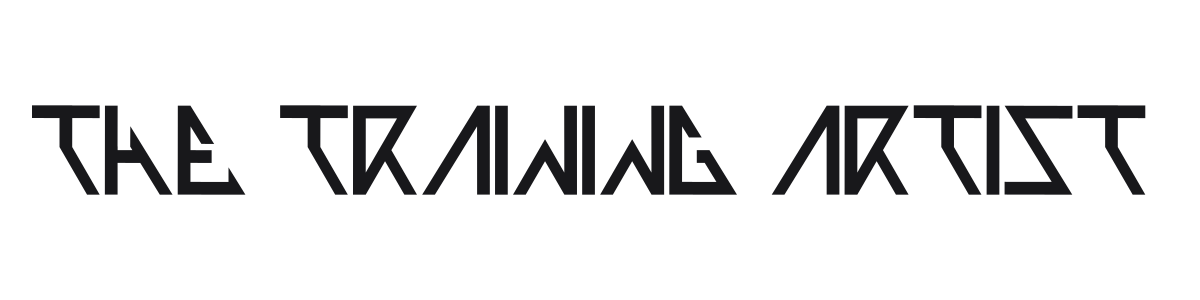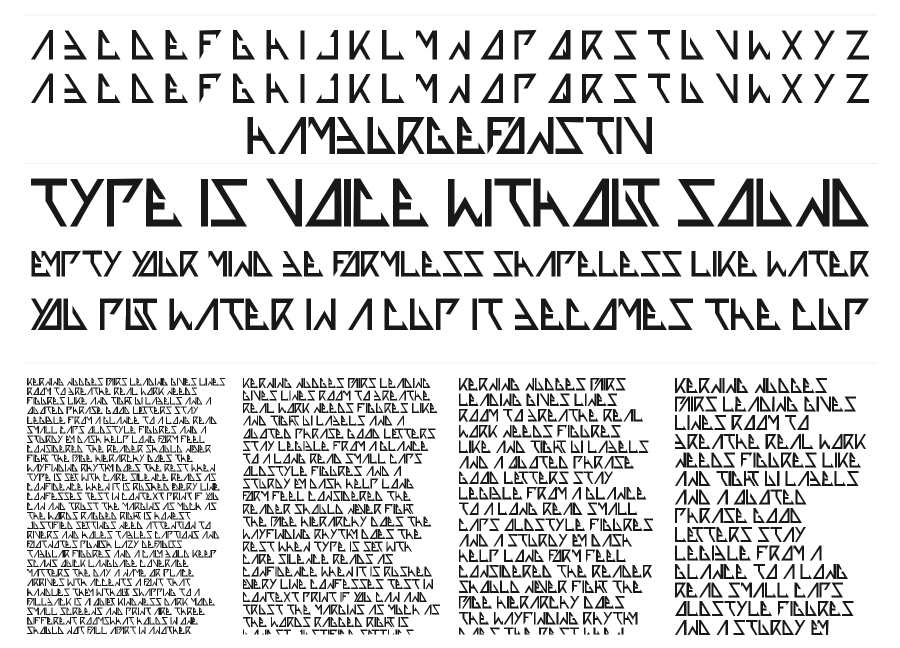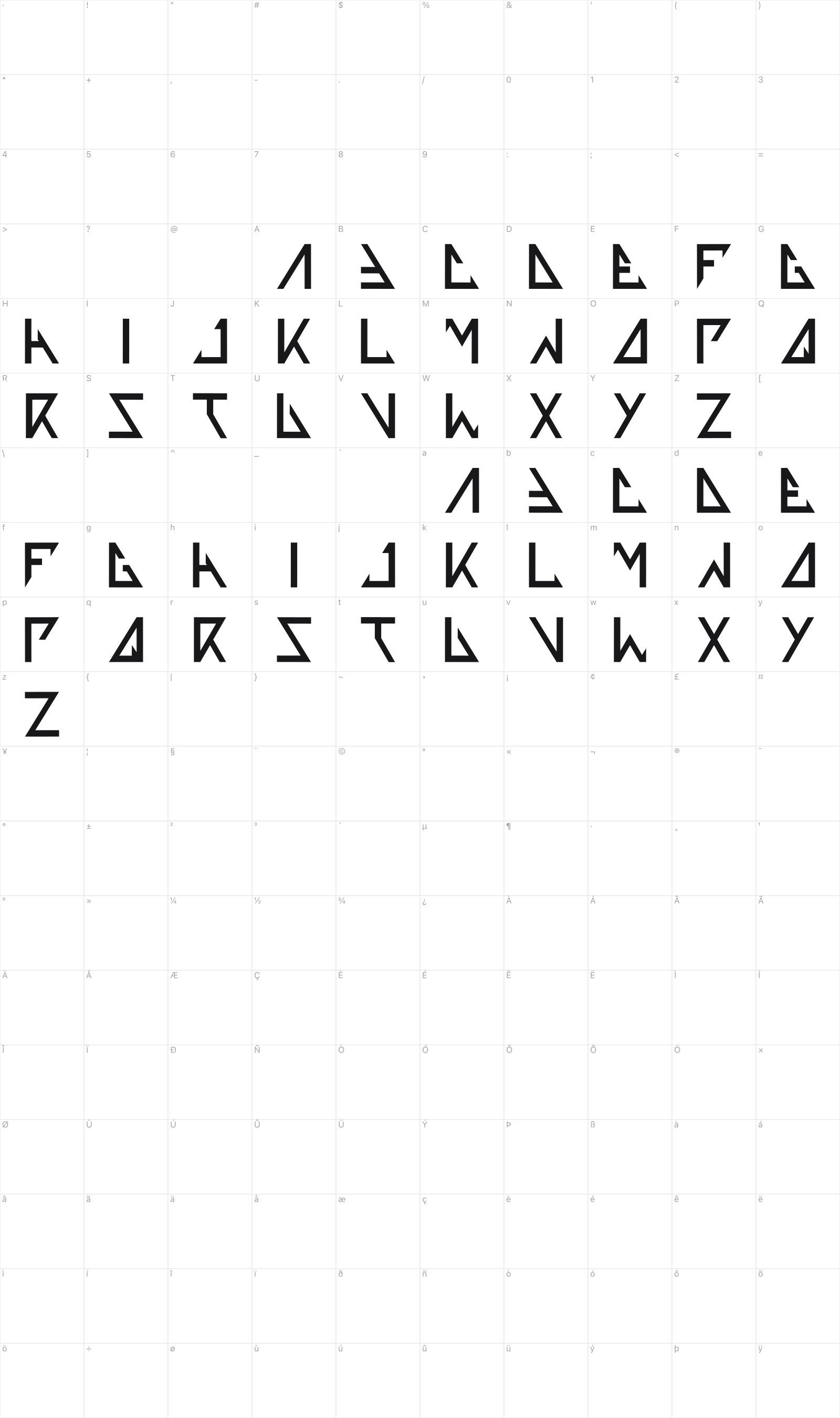
The Training Artist
The Training Artist is a bold angular display face built entirely from straight lines and diagonal cuts, with no curves in sight. Every character reads like a fragment of machinery or a decoded alien script, making it immediately striking at large sizes. It carries strong associations with heavy metal typography, science fiction, and action-oriented branding.